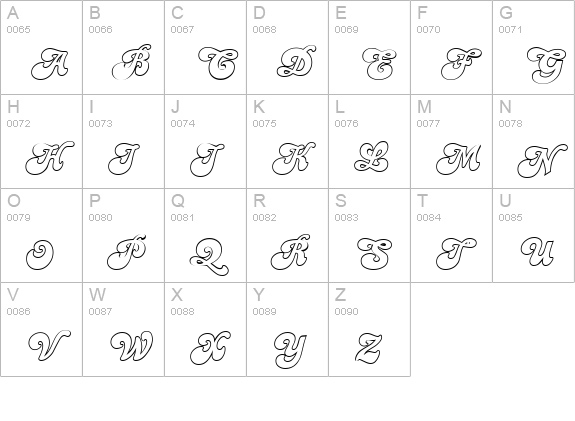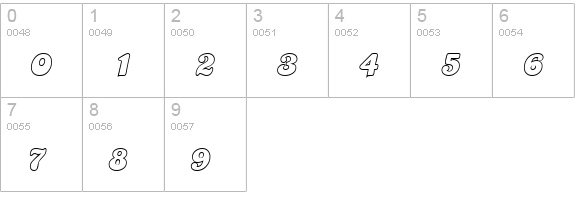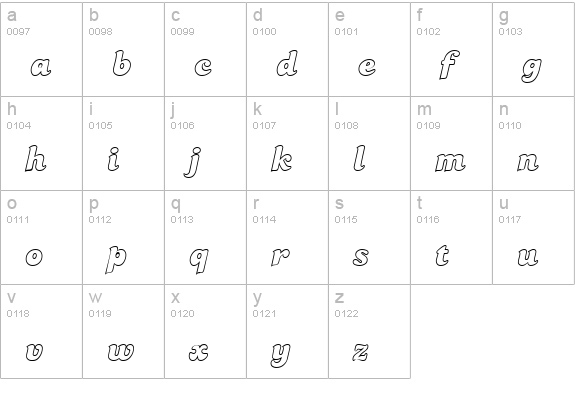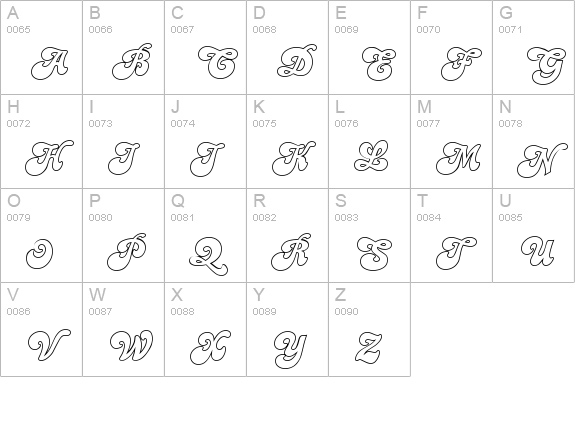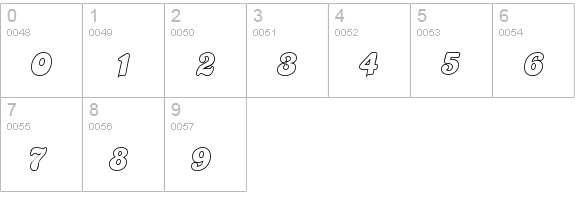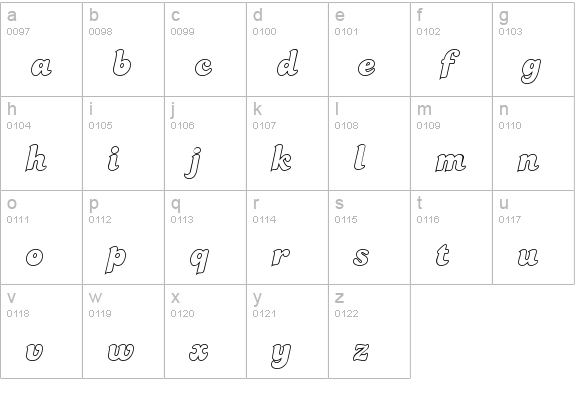
PaulineOpen Font Details
PaulineOpen is a beautifully crafted typeface that exudes elegance and sophistication. With its clean lines and classic appeal, this font is perfect for a wide range of design projects. Whether you're creating invitations, posters, or branding materials, PaulineOpen will add a touch of timeless charm to your work. The best part? PaulineOpen is completely free to download at FontsMarket.com. This means that you can elevate your designs without breaking the bank. So why wait? Download PaulineOpen today and bring a touch of class to your next project.